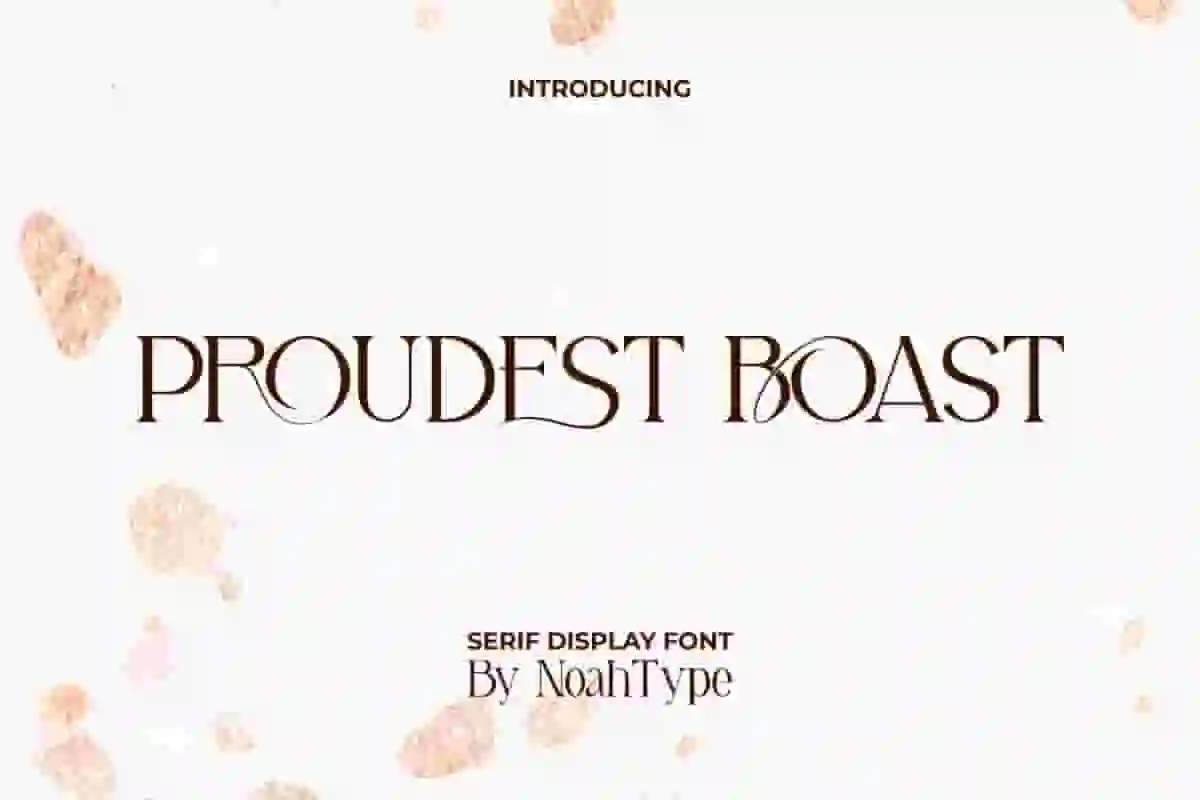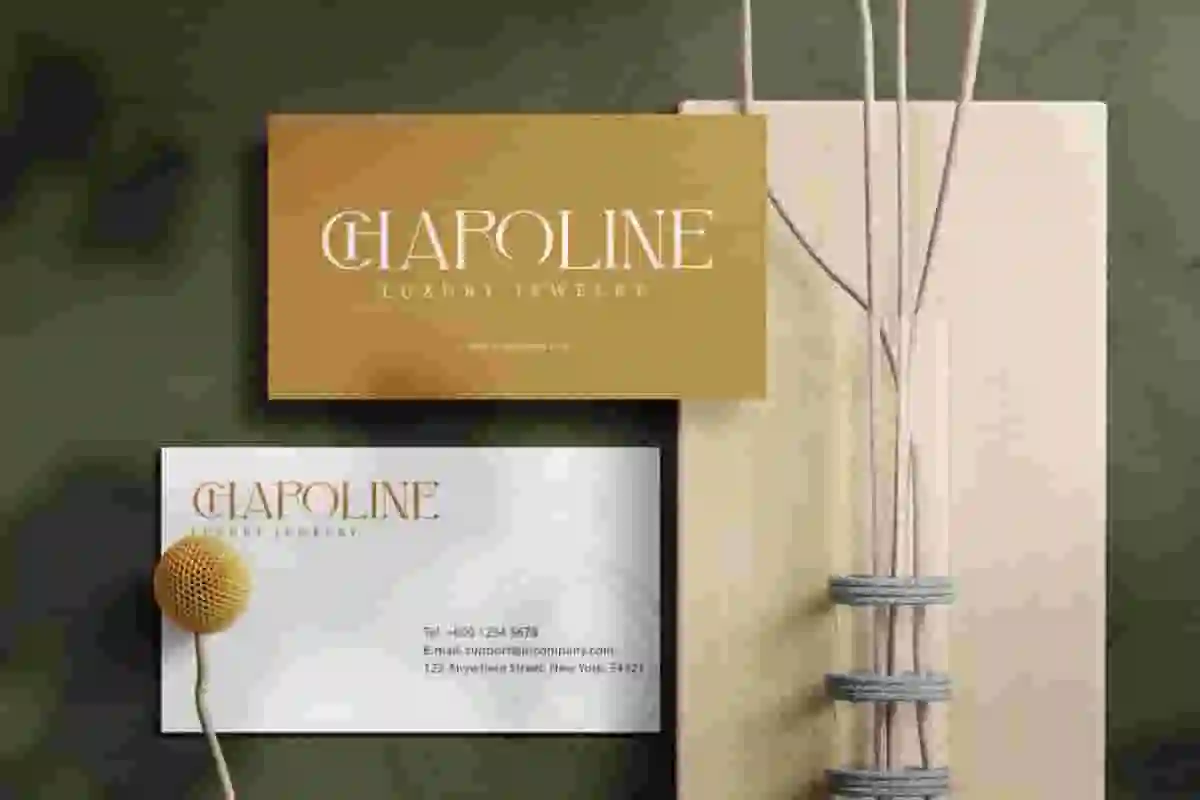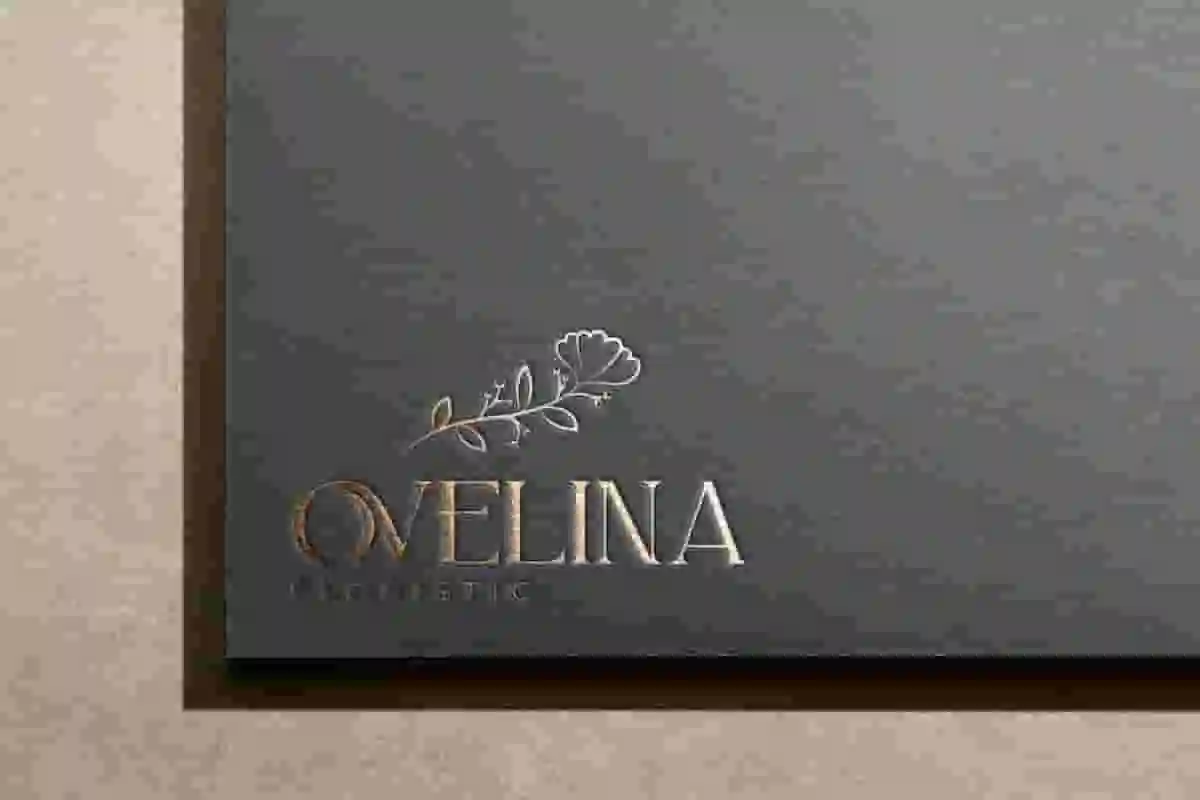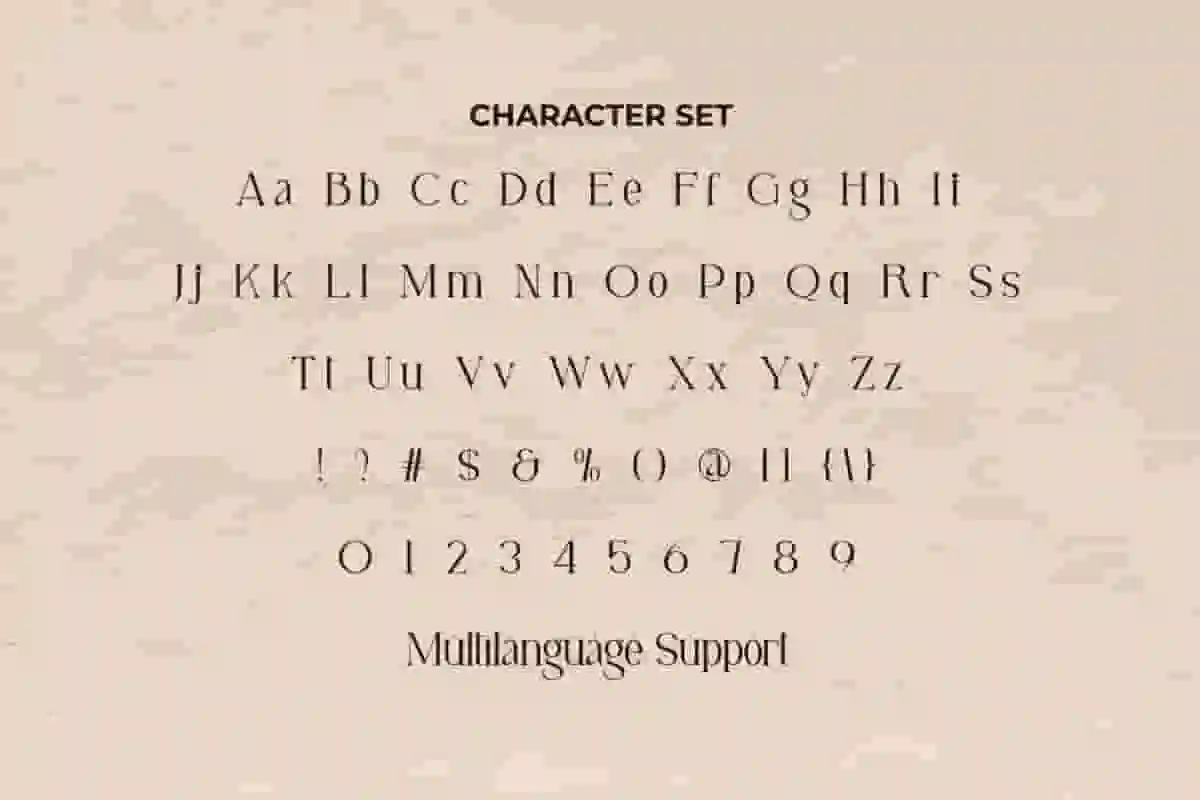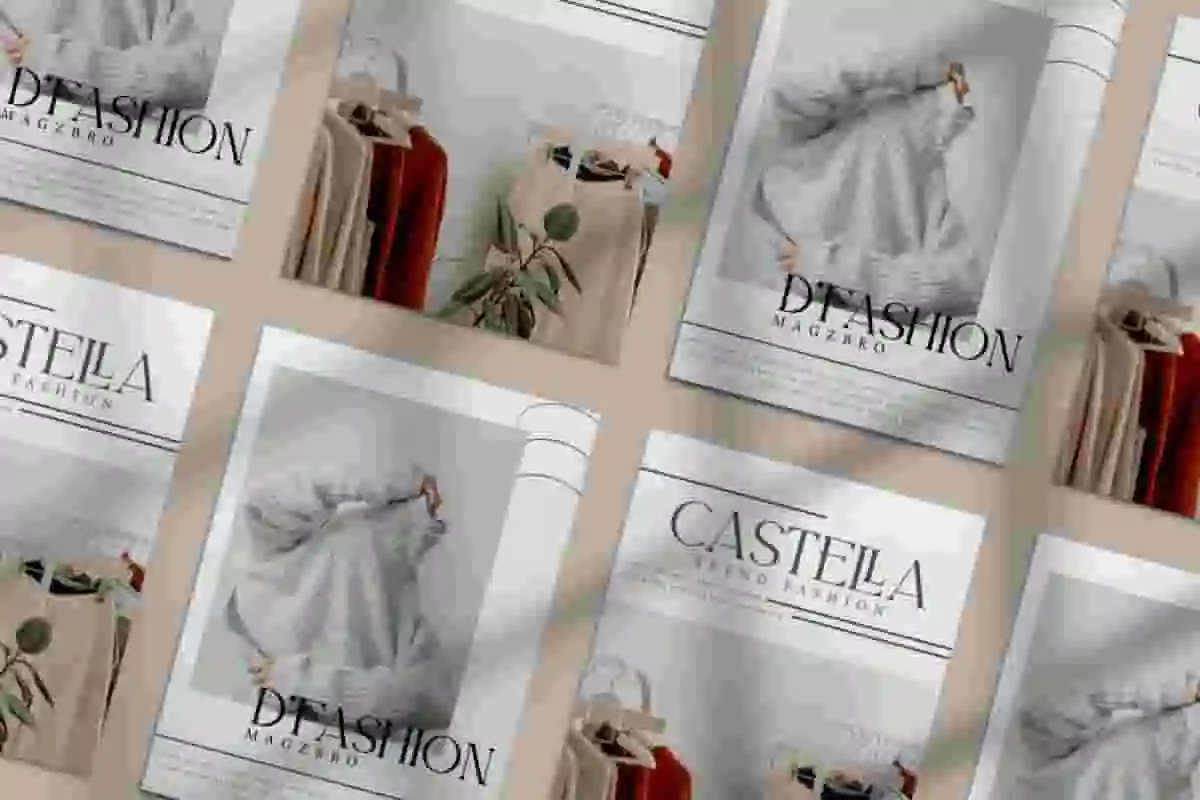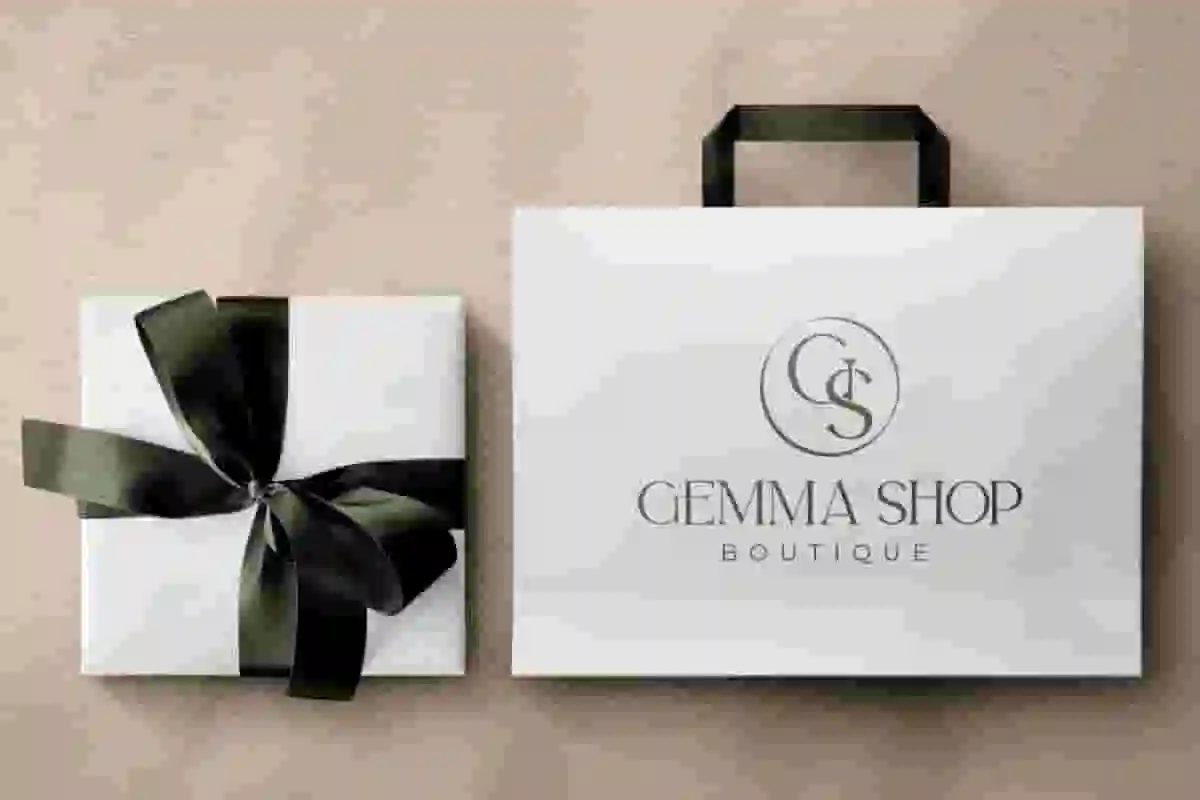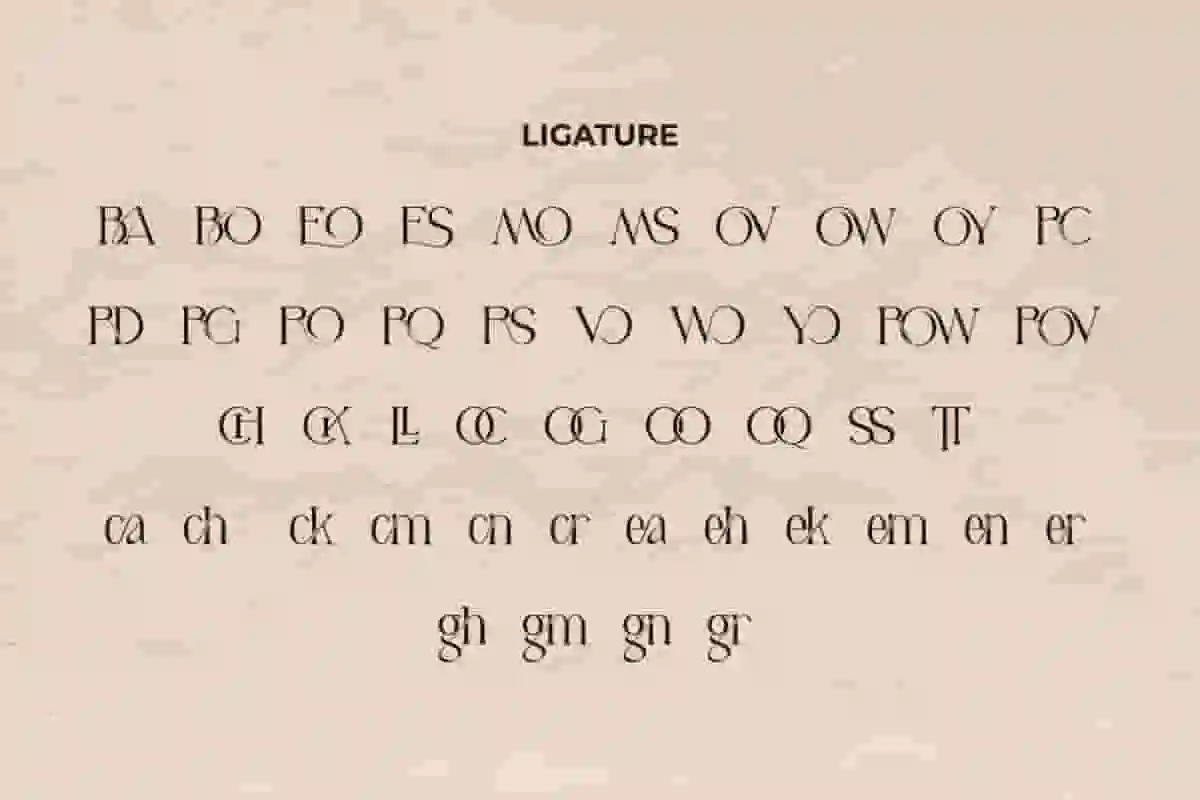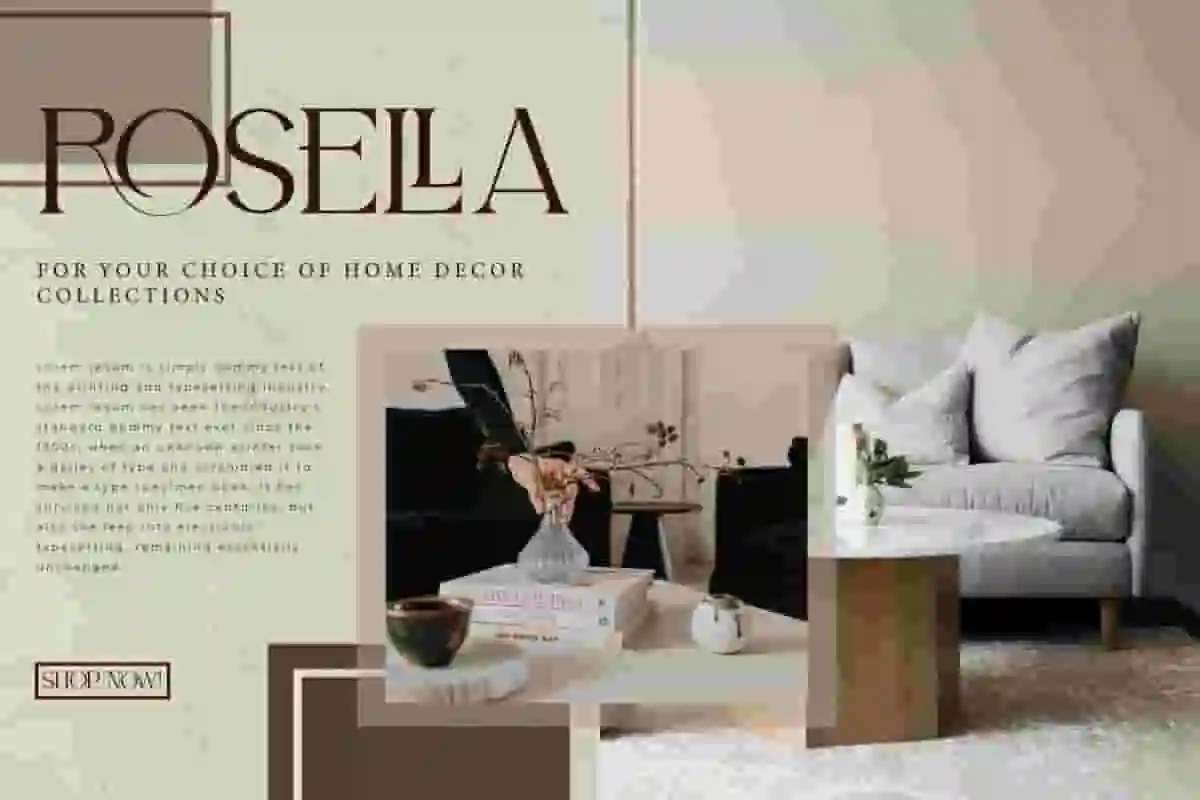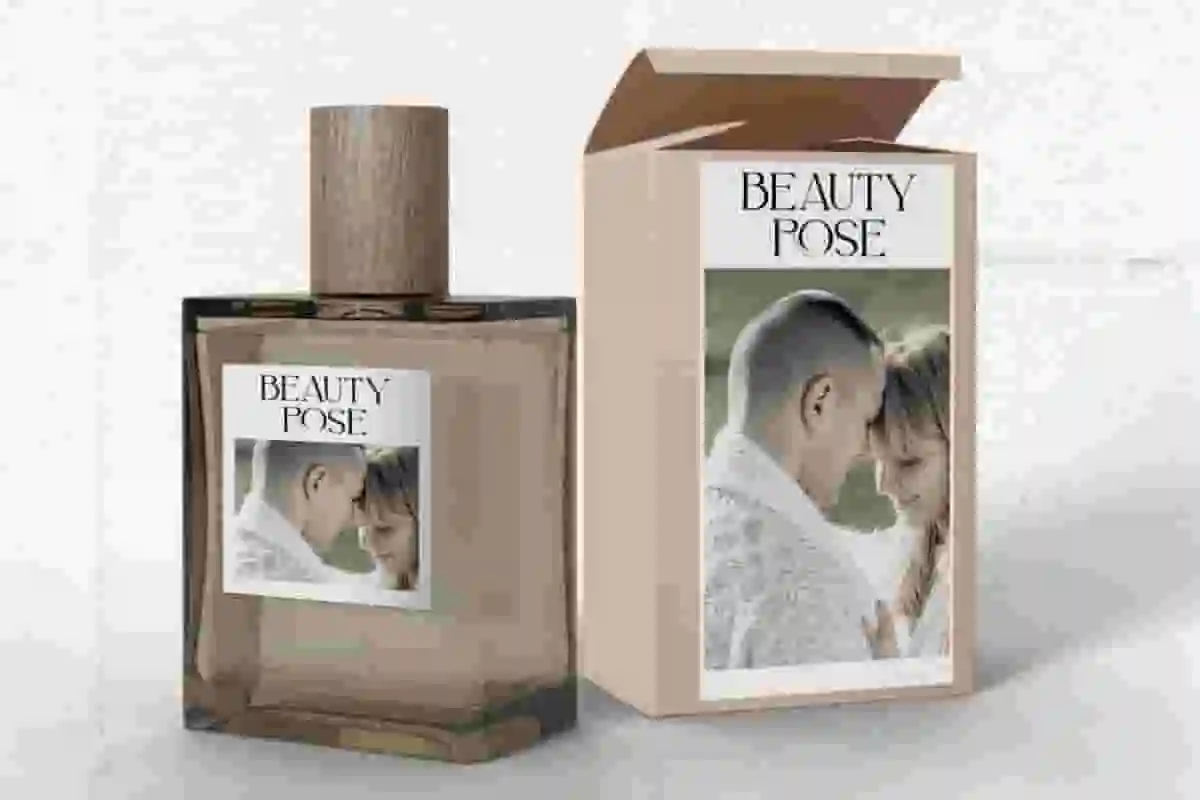
Proudest Boast Font
Proudest Boast Font is an elegant serif display font. This font has a firm thin line so it doesn’t detract the aesthetics of its appearance. This elegant font will match well with other types of fonts and suitable for industries that require a touch of beauty, such as boutique, cosmetic, fashion, florist, homeware, jewelry, publishing, wedding or event organizer, and more!
Proudest Boast Font includes full set of Uppercase and Lowercase Basic Characters, Numerals and Punctuation. This font also has ligature character that will further beautify your design! This font would be perfect for business card, custom design, invitation, label, letterhead, magazine, mockup design, product packaging, quote, signage, website page, etc.